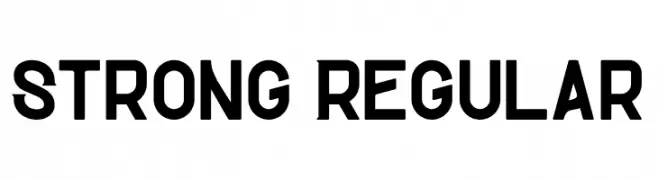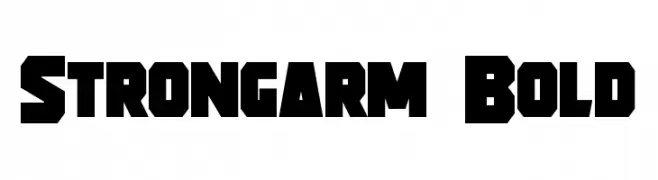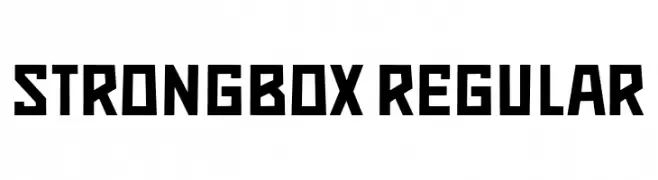
Strong Font
A modern, geometric sans-serif font with consistent stroke width and balanced proportions.
Love Strong personal Use Regular Font
A bold, dynamic script font with flowing, cursive letters and strong visual impact.
Strong-Regular Font
A modern, geometric sans-serif font with a clean and balanced design.
Be Strong Font
A bold, flowing script font with elegant curves and a handwritten feel.
Strong Glasgow Font
A bold, geometric font with a modern and assertive style.
Font-fil-A Font
A bold, hand-drawn font with a playful, graffiti-like style.
stronger Font
A bold, brush-style font with dynamic, handcrafted strokes.
Semi Strong Font
Bold, blocky font with a strong, modern presence.
Wayne Fonts Font
A bold, slanted font with a dynamic and modern style.
Comic Serif Font
A playful serif font with a hand-drawn, comic-like style.
STRONGBOX-Bold Font
A bold, blocky font with a strong, industrial style.
CA Strongman Font
A bold, strong serif font with a geometric and authoritative style.
Little Golden Font
A playful, hand-drawn script font with smooth curves and loops.
The Missus Hand Strong Font
A hand-crafted, calligraphic font with bold, irregular strokes.
Strongarm Italic Font
A bold, italic font with a dynamic, angular style.
FG-roundtip Font
A bold, rounded, hand-drawn font with a playful and casual style.
Strongarm Font
A bold, geometric font with strong, blocky characters.
Strong Girl Font